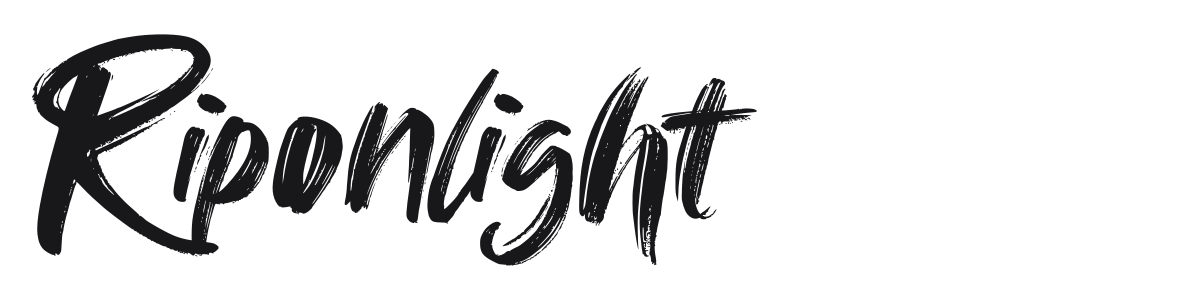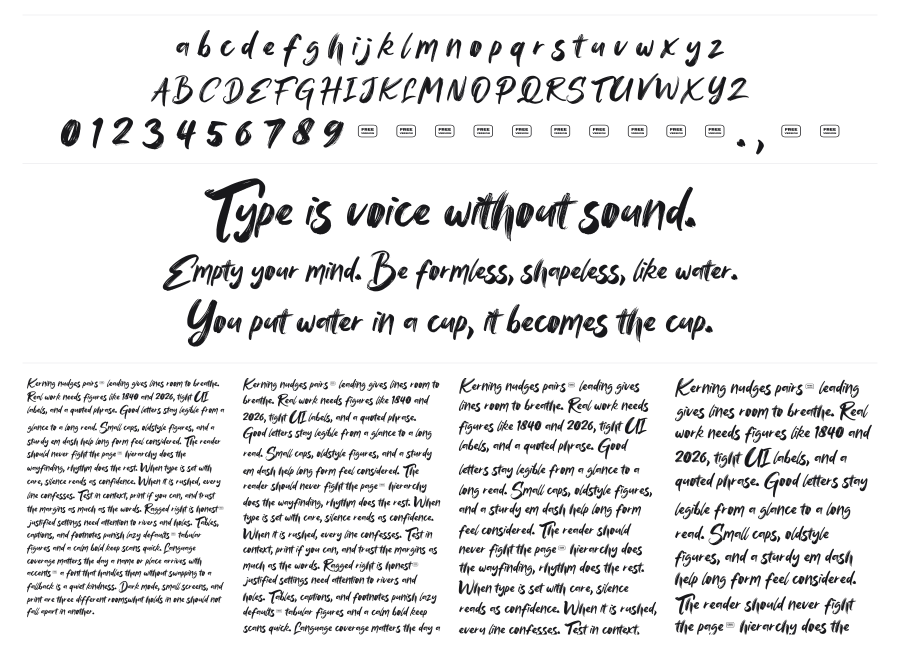
Riponlight
Riponlight is a rough brush script with bristle texture and dramatic stroke contrast that makes every word feel hand-lettered at full speed. The irregular edges and ink-drag details give it genuine tactile quality, well beyond typical brush font smoothness. Strong in logos, album covers, posters, and anywhere a design needs unpolished, kinetic energy.